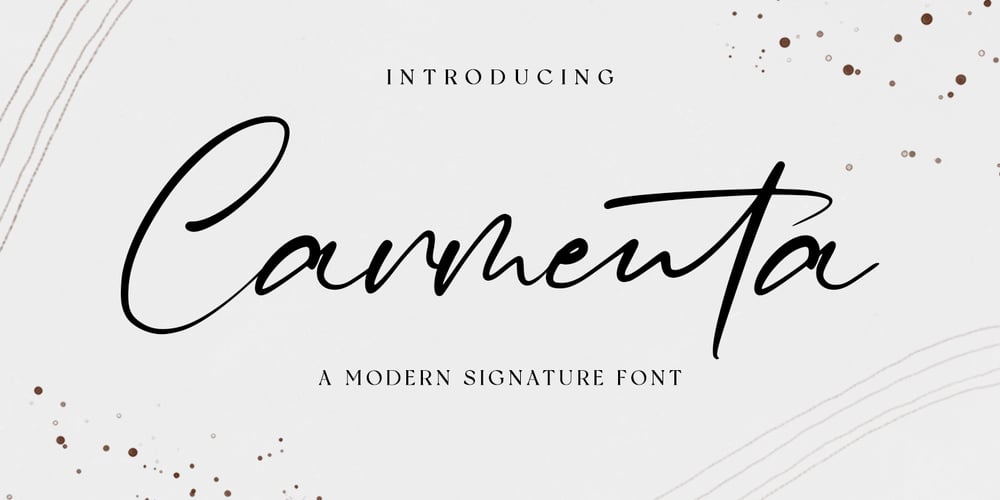
Carmenta Font Family was designed by Novia Himatunnisa and published by Nissa Nana. Carmenta contains 1 styles and family package options. Carmenta is a distinct graceful script font. Fall for its ravishing style and use it to create gorgeous designs.